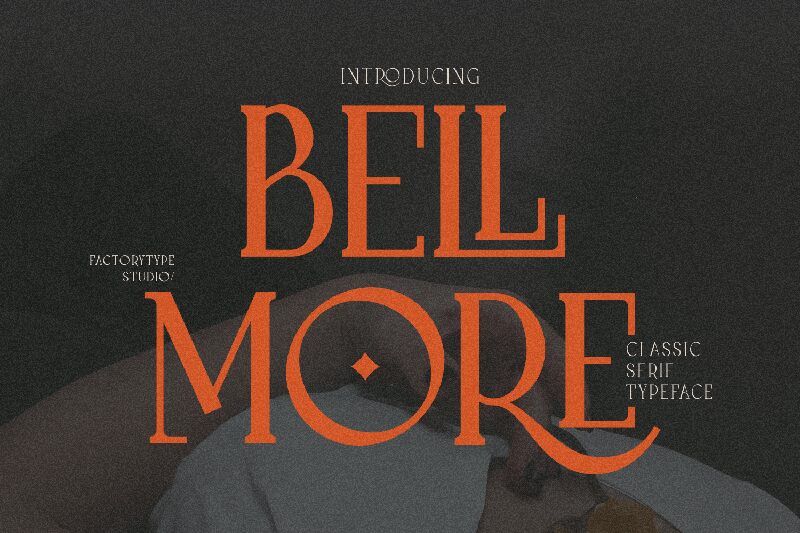
BellMore FREE
Download the Bellmore font family for free today! The classic yet modern design exudes elegance and sophistication. With a variety of weights to choose from, youll have the flexibility to select the perfect typographic color for your project. And with the included ligatures and italic styles, your project will have a unique and distinctive look. Download it for free now!
FactoryType